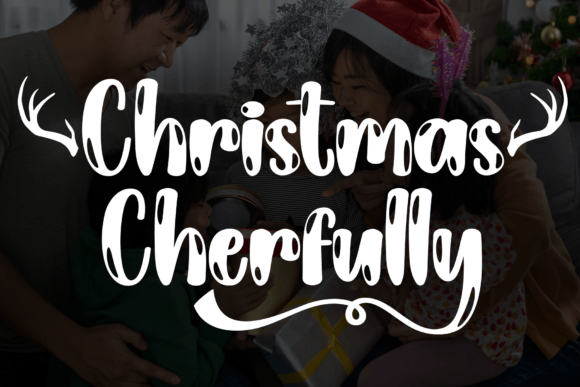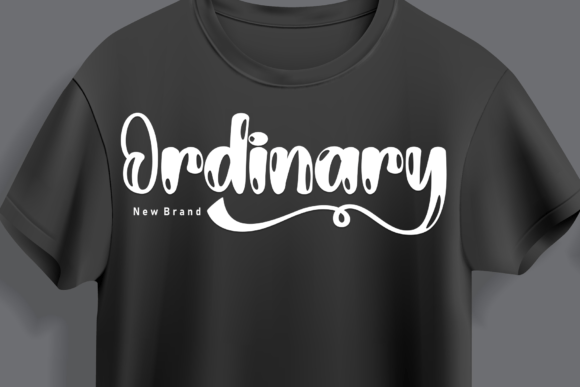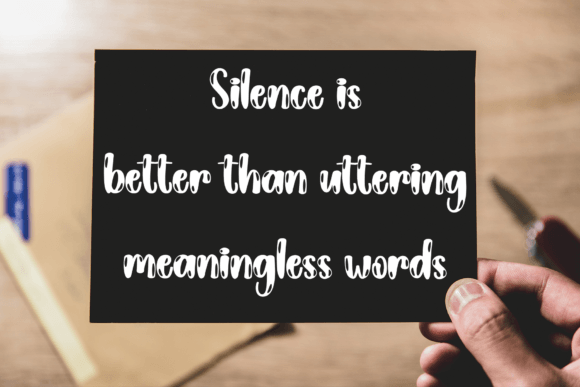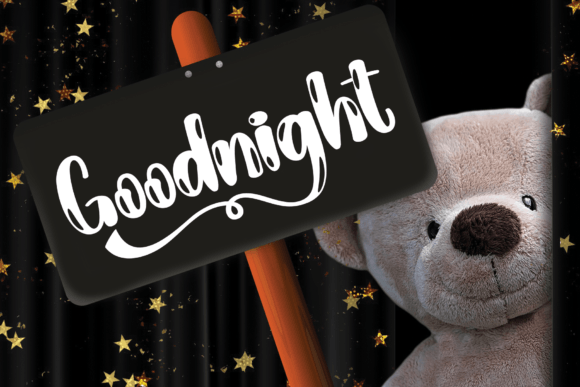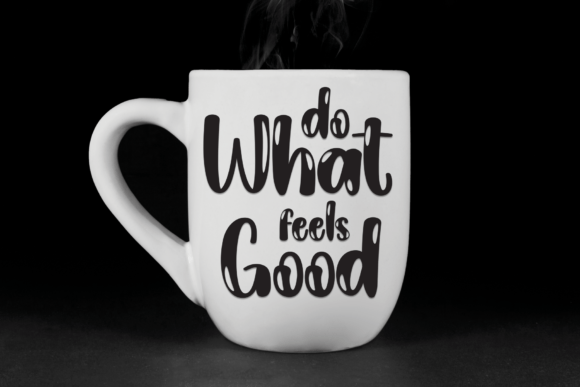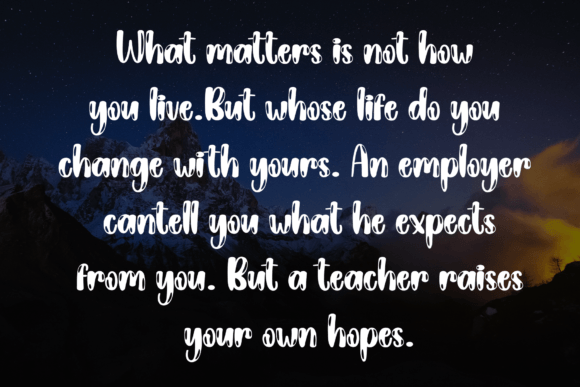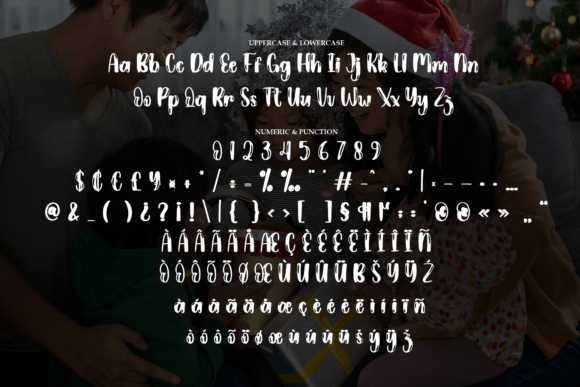
Deck the Halls with Joy: Introducing Christmas Cheerfully Font
It’s that time of the year when creativity flows freely, and the festive spirit is in the air. You’re brainstorming ideas for your holiday marketing campaigns, and you want to make them truly unforgettable. As you scroll through your font collection, you can’t help but feel a pinch of excitement thinking about the perfect font to complement your designs. That’s when you stumble upon Christmas Cheerfully Font – a delightful display font that screams joy and cheer.
This charming font is designed to bring a smile to your audience’s faces, and it’s perfect for adding a whimsical touch to your festive designs. Whether you’re creating holiday cards, social media graphics, or even packaging, Christmas Cheerfully Font is sure to make your creations stand out. Its unique charm and playfulness make it a valuable addition to any designer’s toolkit, especially during the holiday season.
Christmas Cheerfully Font Key Features
- Font Family: Christmas Cheerfully Font is a unique, hand-drawn font family that includes 6 different styles (Regular, Italic, Bold, Bold Italic, Outline, and Shadow).
- Unique Characteristics: Features a playful, festive design with intricate details, swashes, and ornaments that evoke a sense of holiday cheer.
Designer Review: Christmas Cheerfully Font
Overall, I’d say the Christmas Cheerfully Font is a fun and playful addition to any holiday-themed project. Here’s what I think:
- The font is highly customizable, with various color and size options available.
- The intricate details and ornaments make it perfect for creating a festive atmosphere.
- The font is highly legible, even at smaller sizes, which is a must for any font.
- The font is only suitable for holiday-themed projects, which might limit its use outside of Christmas and New Year’s celebrations.
- Some users might find the font’s ornate details overwhelming or too busy for certain designs.
While the Christmas Cheerfully Font has some limitations, its unique charm and high level of customization make it a great choice for designers looking to add a festive touch to their projects. It’s perfect for creating eye-catching holiday cards, social media posts, and more. Just be sure to use it sparingly to avoid overwhelming your design.
The Christmas Cheerfully font is perfect for holiday-themed designs, such as Christmas cards, invitations, and posters. You can also use it for social media graphics and online ads.
For the most effective use of the font, combine it with festive colors and graphics, such as snowflakes, holly, or candy canes.